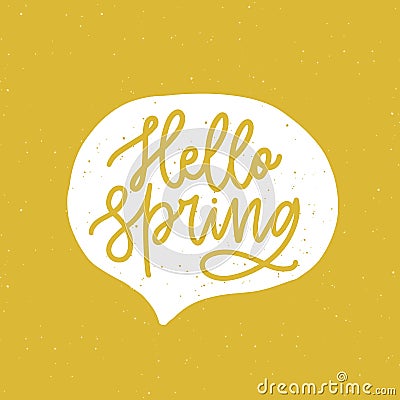
Hello Spring phrase handwritten with elegant cursive font or script inside speech balloon or bubble on yellow background #372122042
Hello Spring phrase handwritten with elegant cursive font or script inside speech balloon or bubble on yellow background. Springtime seasonal lettering or inscription. Hand drawn vector illustration.